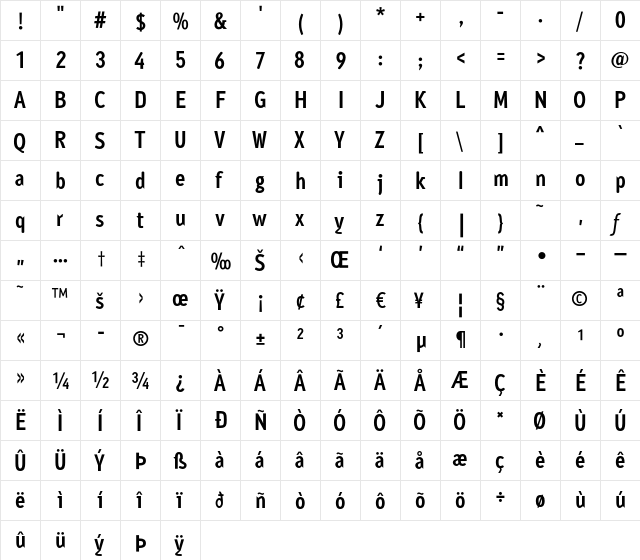
AyumiBold Regular
Design Context for AyumiBold Typeface
AyumiBold offers clean, dependable letterforms without strong stylistic allegiance, making it a practical choice for designers who need flexibility. The heavy weight commands attention and anchors typographic hierarchies.